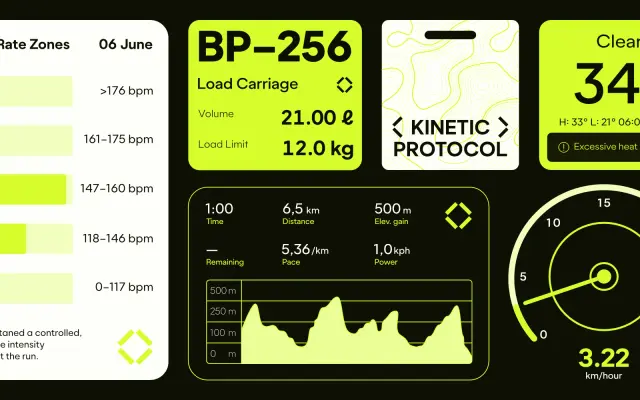
Gramatika
A geometric sans-serif from Tokotype offered in eight weights with matching italics, variable fonts and broad Latin and Cyrillic coverage.
Available in eight weights from ExtraLight to Black with corresponding italics, the family also ships as variable fonts covering both upright and italic axes. Glyph coverage extends across Latin Extended and Cyrillic, making it suited to multilingual branding and editorial work. Specimen usage skews towards packaging and product identity contexts.
The upright and italic families, variable axes, and glyph specimen suggest a clean geometric sans construction with consistent stroke widths and rational letterforms typical of the geometric sans genre.